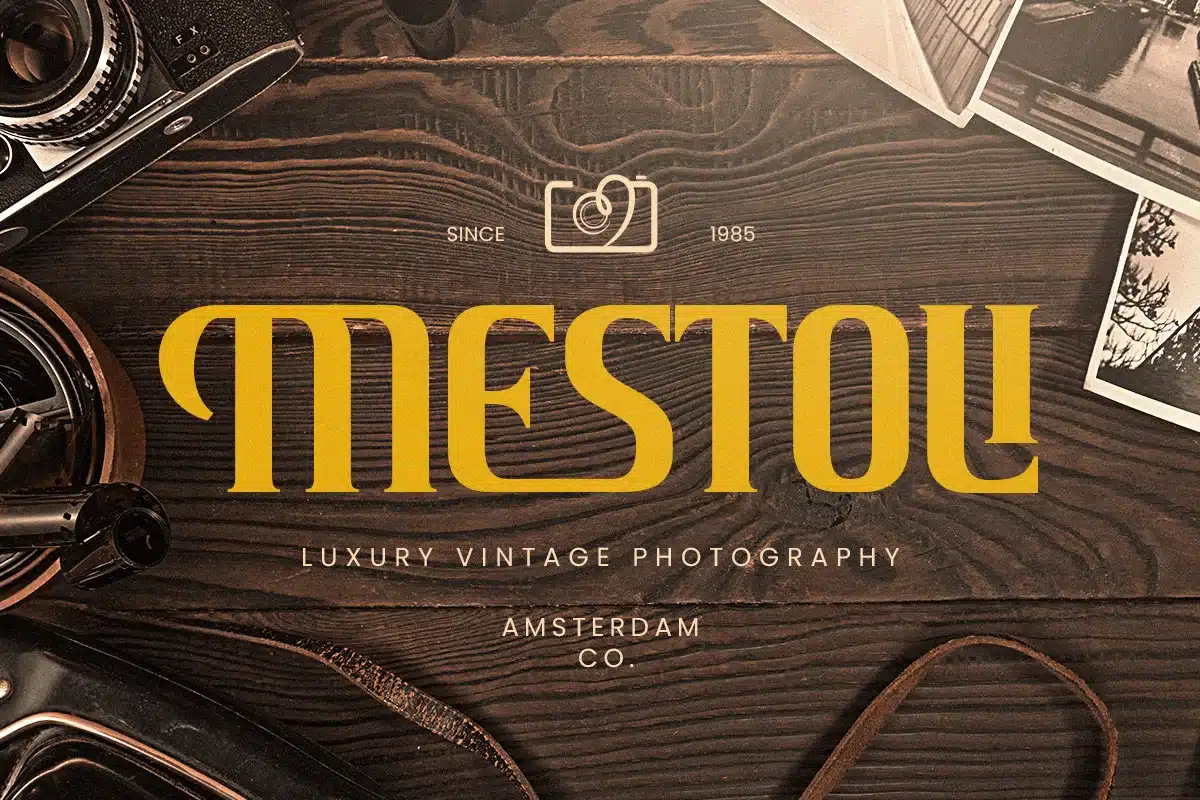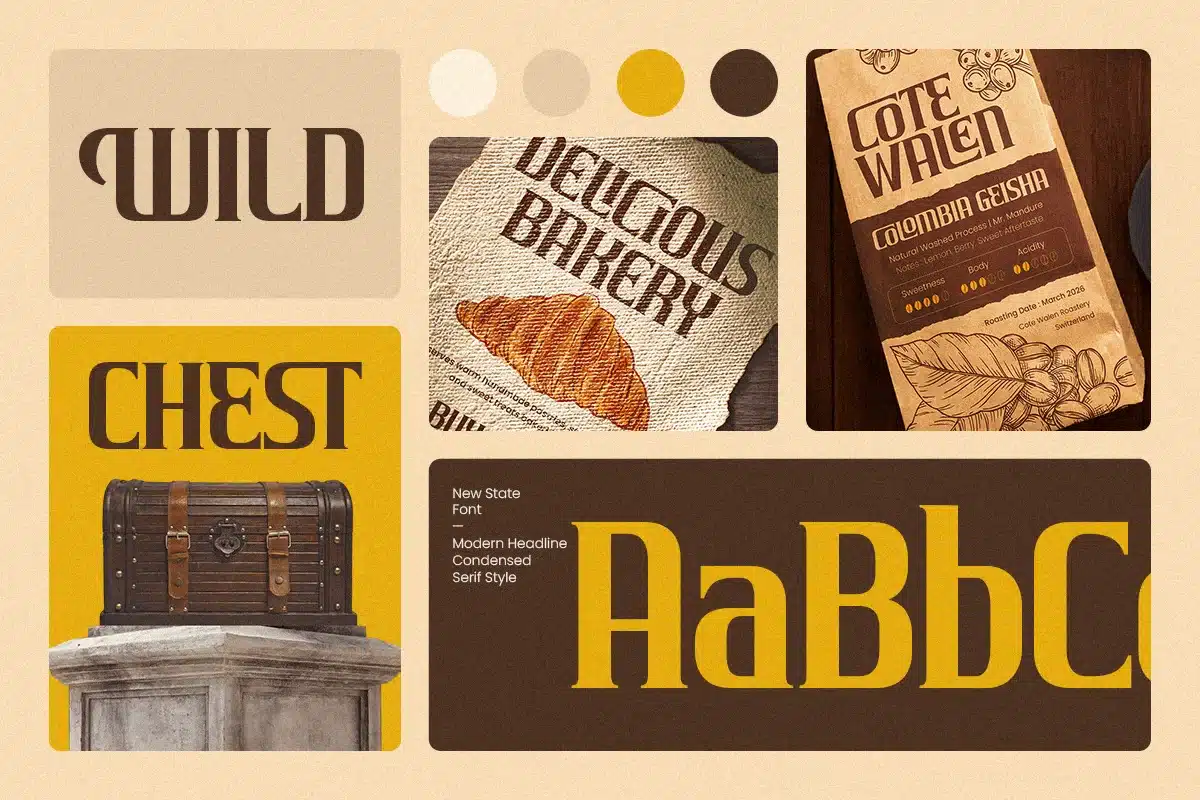
New State – Modern Headline Condensed Serif Font
NEW STATE is a modern headline condensed classic serif font crafted to deliver timeless elegance with strong editorial presence. With refined serif details, tall condensed proportions, and a polished visual rhythm, this typeface creates a premium tone that feels sophisticated, confident, and instantly eye-catching.
Built for headline-focused typography, NEW STATE works beautifully across magazine covers, editorial layouts, logos, wordmarks, website headers, posters, packaging, labels, presentations, and upscale marketing visuals. Its condensed structure helps maximize space while keeping every composition sharp, stylish, and highly readable across both digital and print design.
Whether you’re building a fashion identity, designing premium editorial spreads, creating elegant product packaging, or crafting bold brand headlines, NEW STATE provides a classic serif foundation with modern condensed impact that makes your typography feel polished, timeless, and unforgettable.
Inspiration Behind NEW STATE
NEW STATE is inspired by classic newspaper and editorial typography reimagined through a modern luxury lens—where condensed proportions, refined serif contrast, and structured elegance create a commanding visual voice. The design focuses on bold hierarchy and timeless sophistication to support premium branding and high-impact headline design.
NEW STATE Font Features:
- Modern condensed serif letterforms with classic editorial character
- Perfect for headlines, logos, and premium branding systems
- Tall refined structure for strong hierarchy and space-saving layouts
- High readability for magazine covers, posters, and editorial design
- OpenType features for polished professional typesetting
- Editorial headlines, magazine covers, and title typography
- Logos, wordmarks, and premium brand identity systems
- Fashion branding, boutique visuals, and upscale campaigns
- Packaging, labels, posters, and elegant promotional layouts
- Social media graphics, websites, presentations, and marketing assets
Make every headline stand tall with NEW STATE—a modern condensed classic serif font built for refined editorial impact. ✨